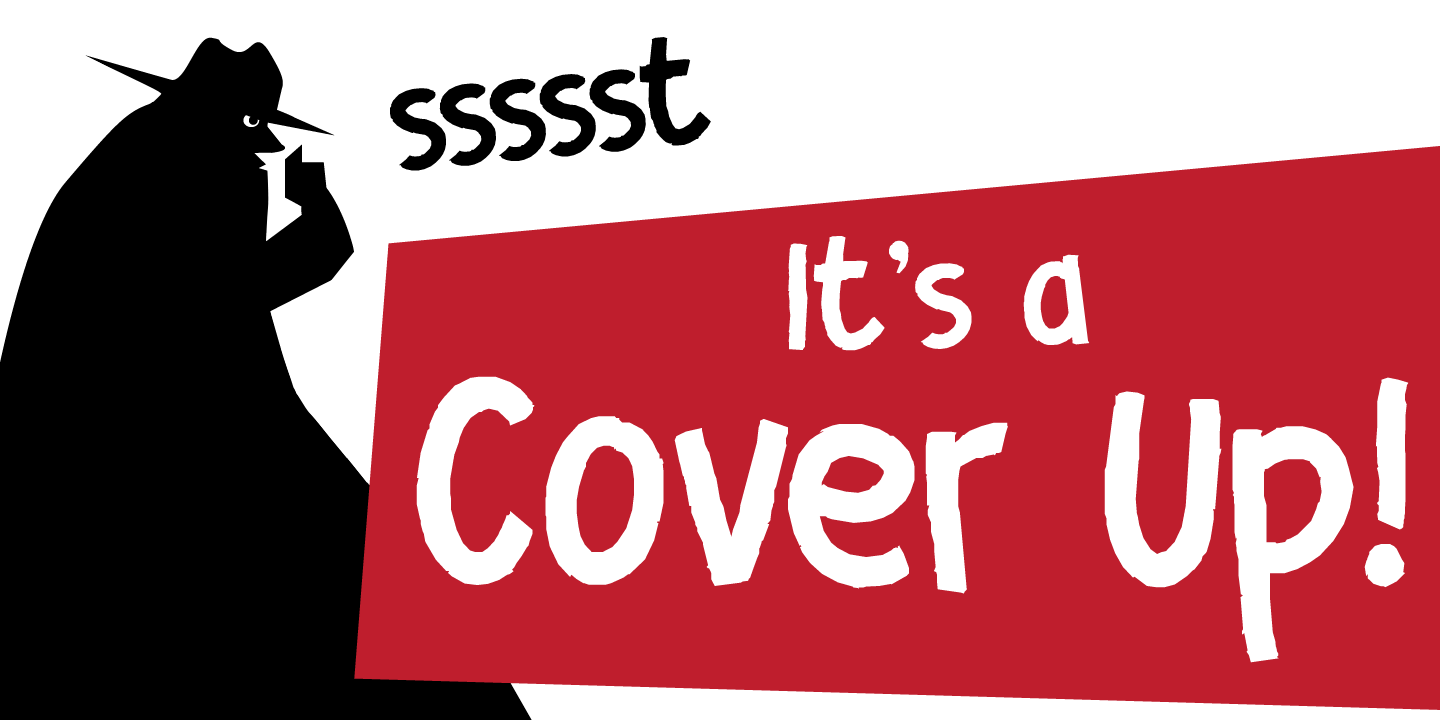
Cover Up Font is perfect for mysterious thriller book covers, intriguing magazine headlines, secretive nightclub branding, enigmatic fashion campaigns, confidential corporate communications, shadowy entertainment promotions, cryptic artistic projects, and clandestine event invitations. This captivating typeface excels in mystery applications, secretive design projects, and any creative work requiring concealed sophistication that communicates hidden depths and mysterious allure through intriguing visual secrecy.
What makes Cover Up Font exciting is its incredible ability to embody mystery and intrigue through cleverly concealed letterforms that hint at hidden meanings while maintaining sophisticated readability and secretive charm. The font features mysteriously designed characters with concealed elements and enigmatic proportions that evoke feelings of curiosity and hidden sophistication, making it ideal for brands seeking to establish mysterious connections and communicate through intriguing visual language. Its secretive presence ensures immediate recognition of mysterious authenticity and concealed elegance.
Cover Up Font family includes multiple weights and styles: Regular, Bold, Light, Medium, Italic variations, and concealed alternates with mysterious embellishments and secretive decorative elements. Each family member maintains the distinctive hidden character while offering comprehensive design options for intriguing campaigns, from subtly mysterious text to commanding concealed headlines that establish enigmatic authority and secretive credibility through mysteriously sophisticated typography.
Whether you're designing mysterious brand identities or creating intriguing secretive campaigns, Cover Up Font Free Download provides the perfect typography solution for concealed branding needs. This font transforms ordinary text into captivating mysterious statements that communicate hidden sophistication and enigmatic allure. Mystery entertainment brands and secretive lifestyle companies choose this typeface for its ability to convey concealed elegance through mysteriously crafted letterforms that hide through designs with intriguing charm and celebrate the beautiful complexity of hidden sophistication.